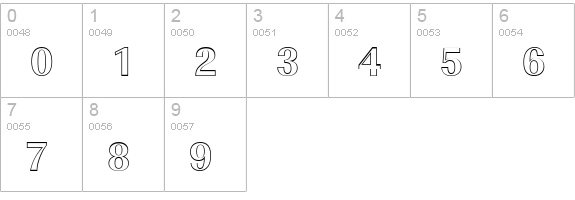
ImperialOu-Bold is a strong, high-contrast variant in the ImperialOu typeface family \xE2\x80\x94 well suited to headlines, attention-grabbing titles, and strong calls-to-action.
ImperialOu-Bold is a striking and elegant font that exudes sophistication and style. With its bold and commanding presence, this typeface is perfect for making a statement in your designs. The sharp serifs and clean lines give ImperialOu-Bold a timeless appeal, making it versatile for both modern and classic projects. What's even better is that ImperialOu-Bold is available for free download at FontsMarket.com. This means you can add this stunning font to your collection without any cost, allowing you to enhance your designs with a touch of luxury and refinement. Don't miss out on the opportunity to elevate your typographic creations with ImperialOu-Bold - download it today and unleash your creativity!